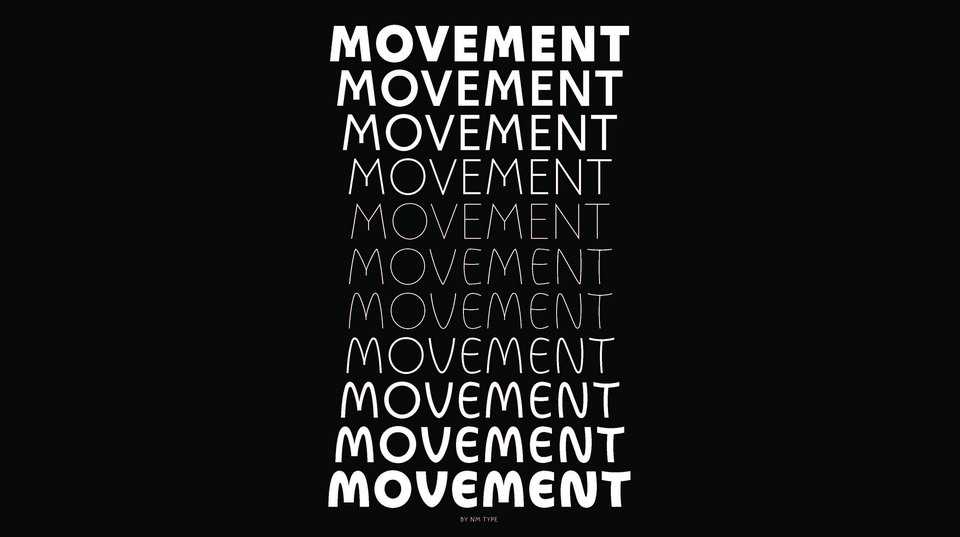
Download Movement typeface, a variable font inspired by dance movements. The variable font has four design extremes, Direct Black, Direct Thin, Indirect Black and Indirect Thin. The variants in-between represent the changes of movement in time.